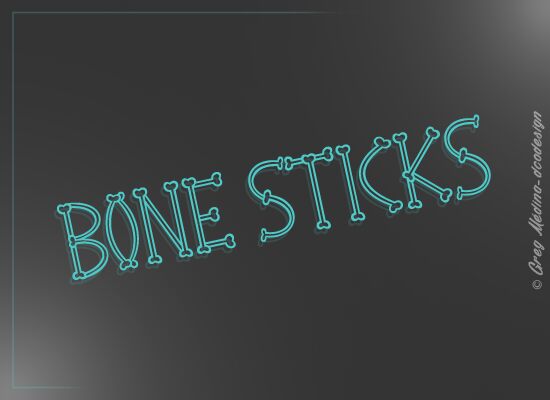
Introducing Bone Sticks, a unique outlined cartoon font created by Gregory Medina of dcodesign. Perfect for creating fun and eye-catching designs, this condensed and light display font is sure to become a favorite for any project! From logos to children's books, Bone Sticks is sure to make your design stand out. Make a statement with this exciting font today!